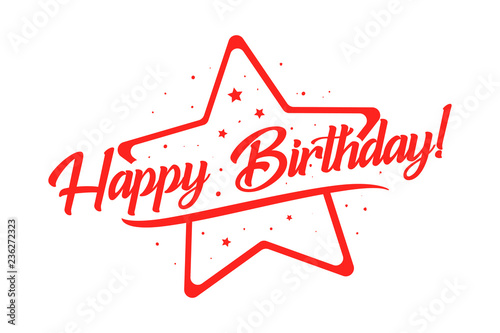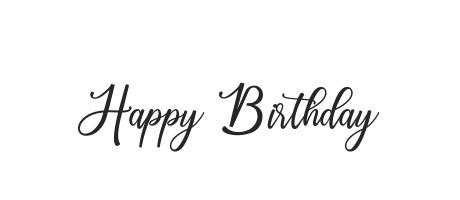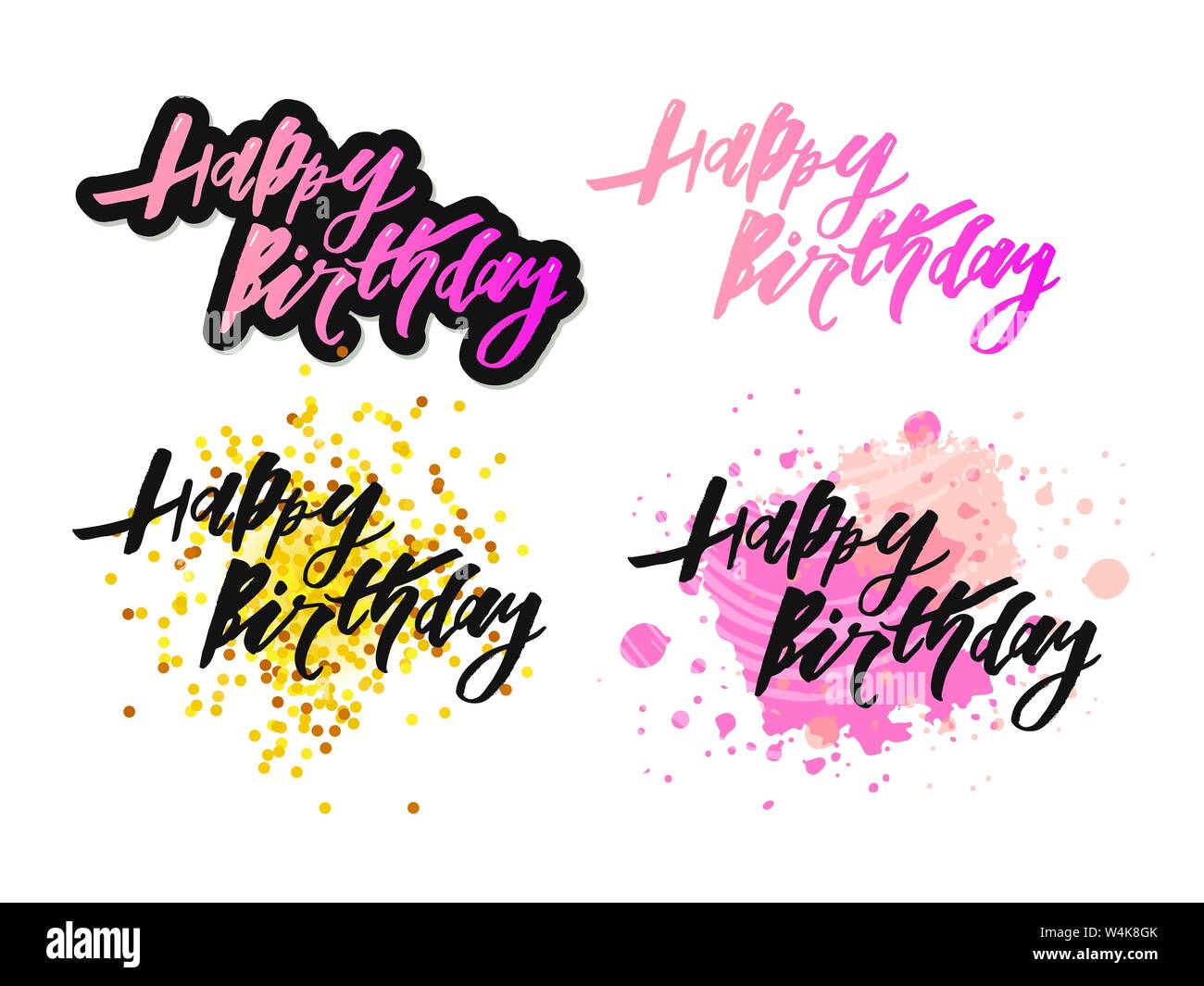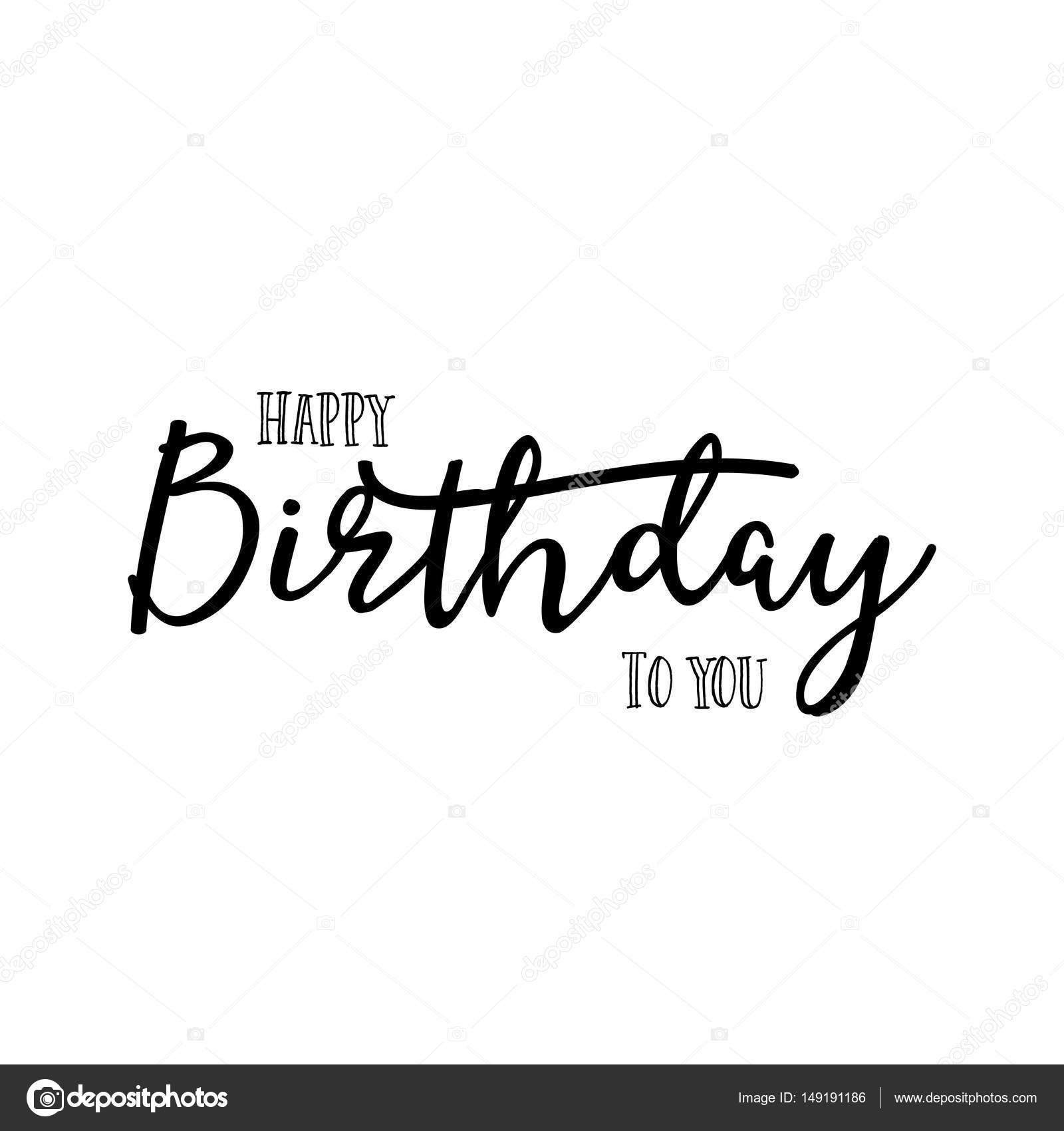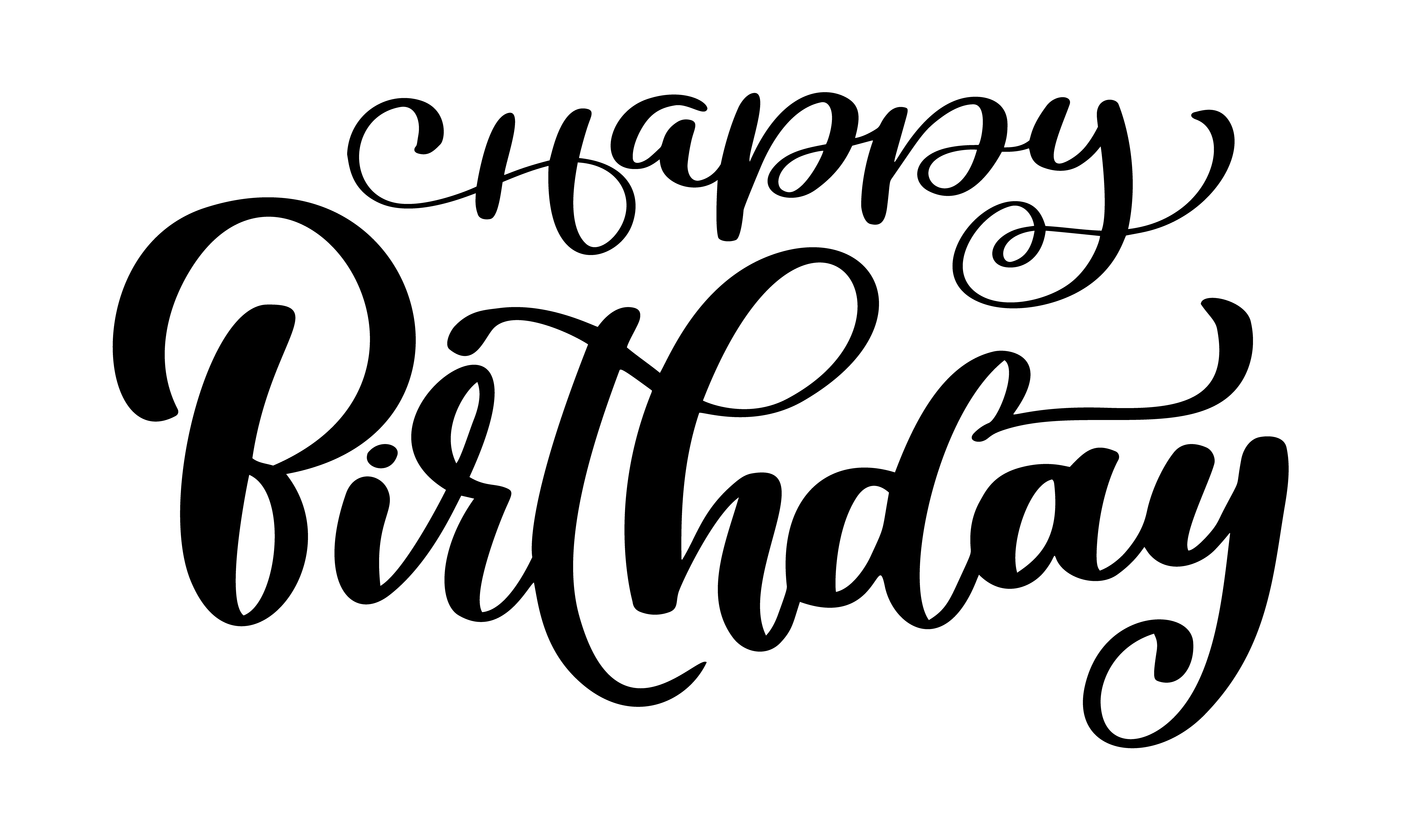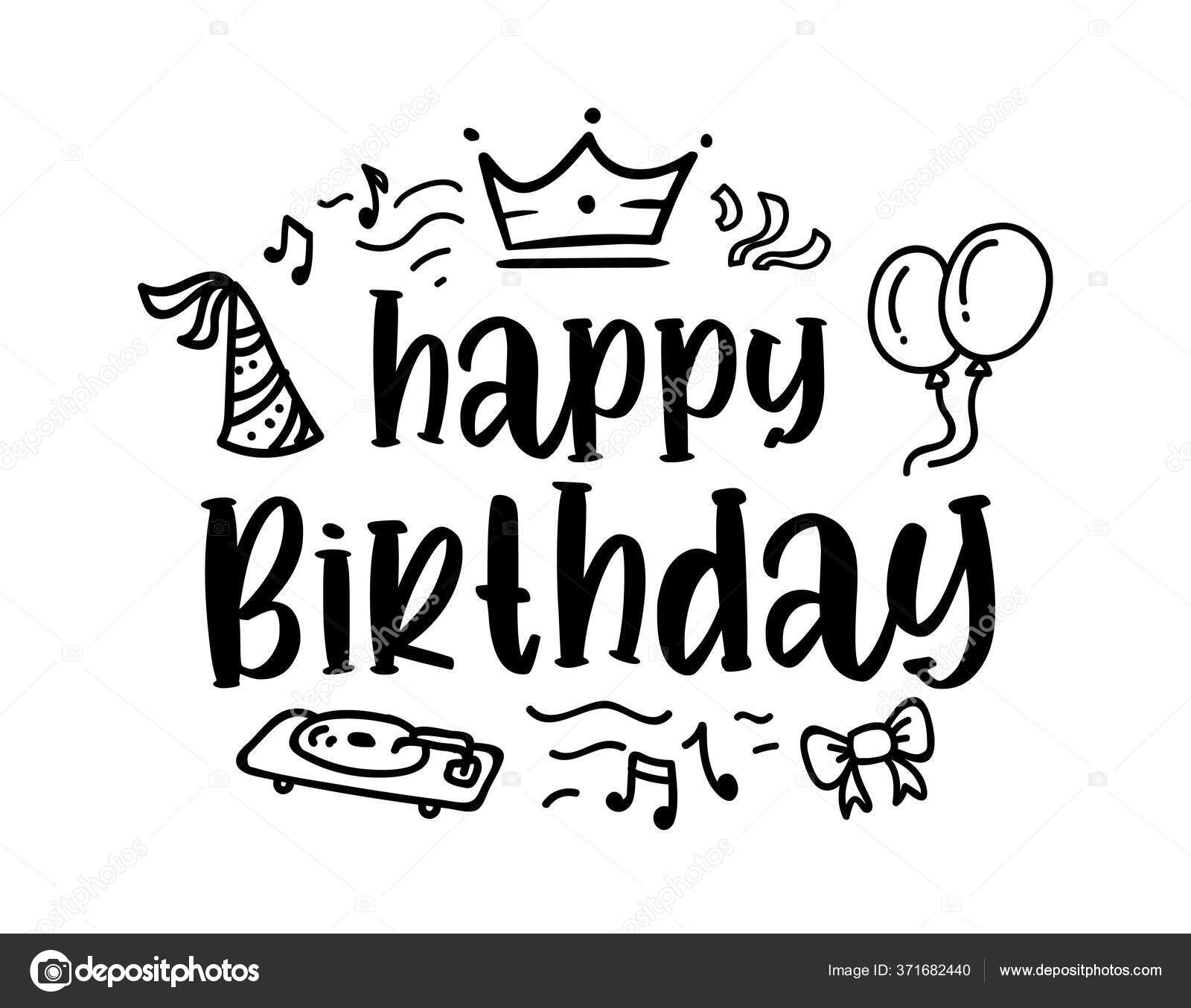
Happy Birthday Calligraphy Greeting Card Hand Drawn Vector Font Lettering On White Background Paint Brush Text Of Modern Calligraphic Design For Birthday Party Festive Gift Celebration Stock Vector Adobe Stock
Modern calligraphy typefaces differ from traditional calligraphy in that they do not adhere to specific lettering rules.
Modern happy birthday calligraphy font. Choose any cool font from the list of. Happy birthday darling lettering banner vector. The main sub-styles are traditional calligraphy and modern.
Happy birthday text hand drawn lettering grunge vector. Add your own text andor images. The writing is readable but is usually extravagant and embellished with flourishes.
MUTHIARA - modern calligraphy font - This fonts license is Free For Personal Use Only with limited feature. More you can try first if you want to buy this font. Some of the examples have happy birthday written in calligraphy only and others combine hand lettering with simple handwriting.
Make a wish phrase hand drawn modern calligraphy vector. Its very classy in design and is highly appropriate for the more formal settings. Happy Birthday Font is equipped with 363 glyphs.
Reinitialize more options yellow rabbit a by typhoon type suthi srisopha. As a designer this alternative works well with titles emblems digital art brands and signs. This Olivia typeface is a calligraphy tattoo font youre going to want to get a hold of.
Birthday Font is a modern calligraphy font with. Birthday font is a modern calligraphy font with the current handwriting style this font is perfect for branding wedding invites magazines mugs business cards quotes posters and more you can try first if you want to buy this font. Happy birthday greeting card template with festive vector.
Happy Birthday Font is a modern calligraphy font with. Download 9300 Royalty Free Happy Birthday Calligraphy Vector Images. It usually involves a nibbed pen or brush.
The current handwriting style this font is perfect for branding wedding invites magazines mugs business cards quotes posters and. This style can end up looking very similar to hand-lettered fonts but the difference is that calligraphy is written and not drawn. Calligraphy is an artistic writing style where the pressure is varied to create thick and thin lines all in a single stroke.
Birthday Font is equipped with 363 glyphs. In script calligraphy 209210 downloads 4883 yesterday. See more ideas about lettering happy birthday font happy birthday calligraphy.
Archive of freely downloadable fonts. Birthday cards wedding invites and other formal invitations would be suited for this type of modern calligraphy. The latest and smooth style of this font is ideal for the colossal-sizes textual content.